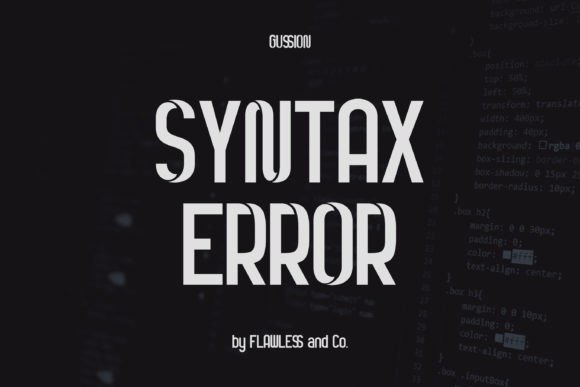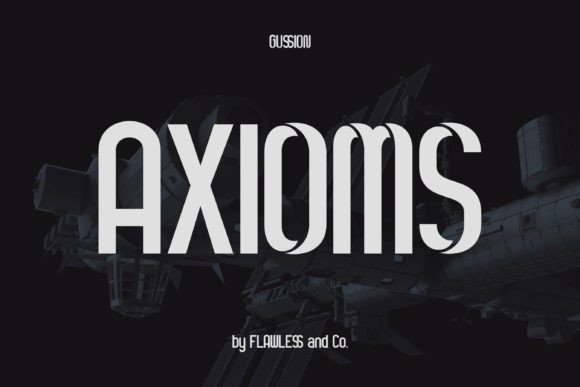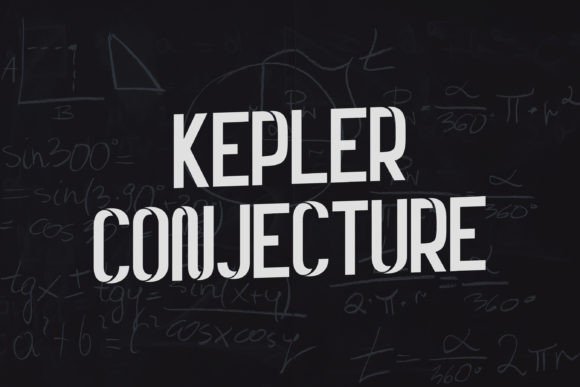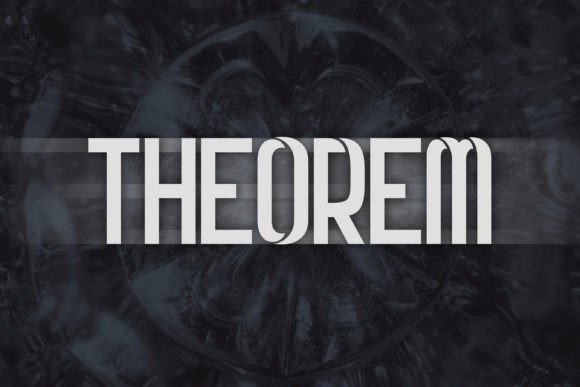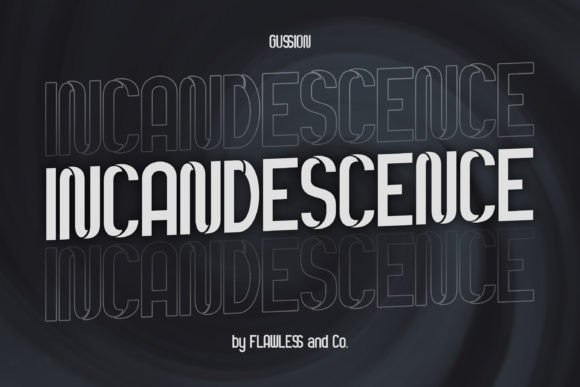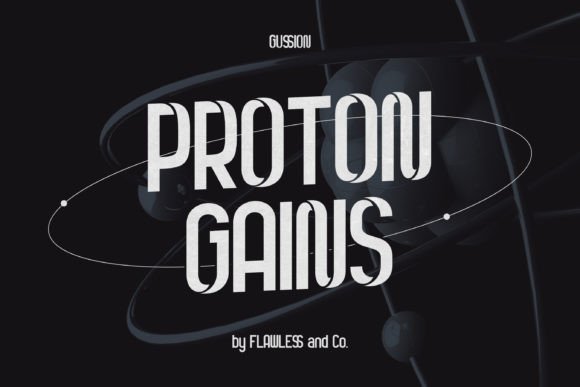
Unleashing the Power of Modern Design with Gussion Font
Remember the moment when you finally find the perfect font to bring your design to life? The feeling of excitement and relief that comes with it is priceless. For designers, finding the right font can be a game-changer. That’s where Gussion Font comes in – a contemporary sans serif font that effortlessly combines modern aesthetics with clean simplicity.
With Gussion Font, you can create designs that exude a sense of modernity and clarity, captivating your audience in the process. Its sleek lines and balanced proportions make it an excellent choice for a wide range of design projects, from minimalist branding to editorial layouts and beyond. Whether you’re a seasoned designer or just starting out, Gussion Font is an invaluable tool in your creative arsenal.
Gussion Font Key Features
- Font Family: Gussion is a sans-serif font family, ideal for modern and minimalist designs.
- Font Size: Gussion is available in 4 weights: Light (100), Regular (400), Medium (500), and Bold (700) for flexibility in design.
- Language Support: Supports multiple languages, including Latin, Cyrillic, and Greek scripts, making it a versatile choice for global designs.
- Unique Characteristics: Gussion features a clean, geometric design with subtle rounded corners, giving it a friendly and approachable feel.
Gussion Font Review
Gussion Font is a beautiful and elegant typeface that’s perfect for adding a touch of sophistication to your designs. ✨ The font’s clean lines and rounded edges give it a friendly and approachable feel, making it ideal for use in logos, headings, and body text.
One of the things that I love about Gussion Font is its versatility. It comes in a range of weights and styles, from light to bold, which makes it easy to find the perfect fit for your design. ✨ The font also includes a range of special characters and glyphs, including swashes and flourishes, which add an extra layer of elegance to your designs.
- Beautiful and elegant design
- Wide range of weights and styles
- Includes special characters and glyphs
- Perfect for use in logos, headings, and body text
- May not be suitable for use in extremely small font sizes
- Some characters may not be easily legible in certain contexts
- May not be as effective for use in bold, attention-grabbing headlines
Overall, I think Gussion Font is a great addition to any designer’s toolkit. While it may have some limitations, its beauty and versatility make it a great choice for a wide range of design projects. ⚠️ Just be sure to use it thoughtfully and with consideration for the context in which it will be used.
Tip: Use the Gussion font for headings and titles to add a touch of elegance to your design.
Tip: Use the Gussion font for text overlays and quotes to add a touch of sophistication to your design.
Tip: Use the Gussion font for titles and headings to add a touch of professionalism to your presentation.
The Gussion font is ideal for:
- Business cards and brochures
- Quote graphics and social media posts
Alternatives to Gussion Font for Designers
1. Arial Black
Arial Black is a sans-serif font that is often used for headings and titles. It is a good alternative to Gussion Font when you want a bold, modern look. Arial Black is more readable than Gussion Font, especially in smaller font sizes, but it lacks the unique flair of Gussion Font.
2. Impact
Impact is a sans-serif font that is known for its bold and dramatic appearance. It is a good choice when you want to add emphasis to a heading or title. Impact is more versatile than Gussion Font and can be used in a wider range of applications, but it may not be as suitable for body text.
3. Museo
Museo is a sans-serif font that is designed to be highly legible and versatile. It is a good alternative to Gussion Font when you want a clean and modern look without the boldness. Museo is more refined than Gussion Font and can be used for both headings and body text.
4. Rockwell
Rockwell is a slab-serif font that is known for its classic and elegant appearance. It is a good choice when you want a font that is both stylish and professional. Rockwell is more formal than Gussion Font and may not be suitable for more casual applications.